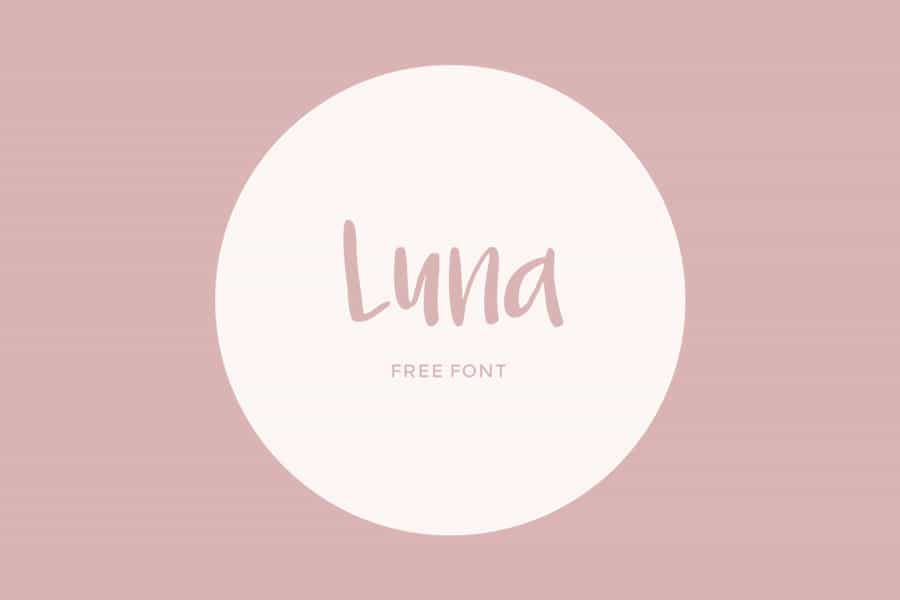
Luna is a calligraphy script font that is delicate and have soft strokes, good for reading, with great contrast and free to download perfect for scrapbooking, wedding invitations, greeting cards, blogs, and more.